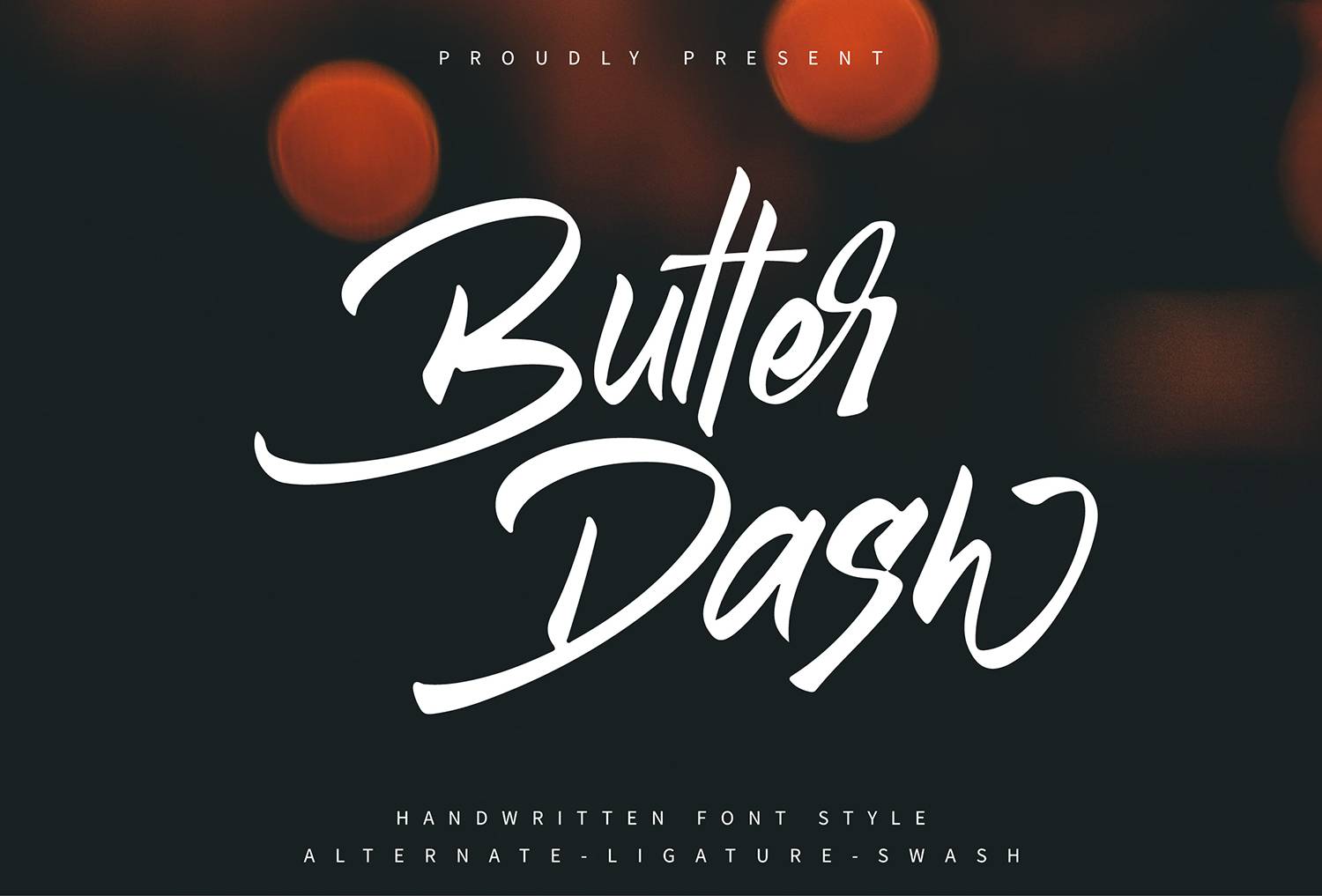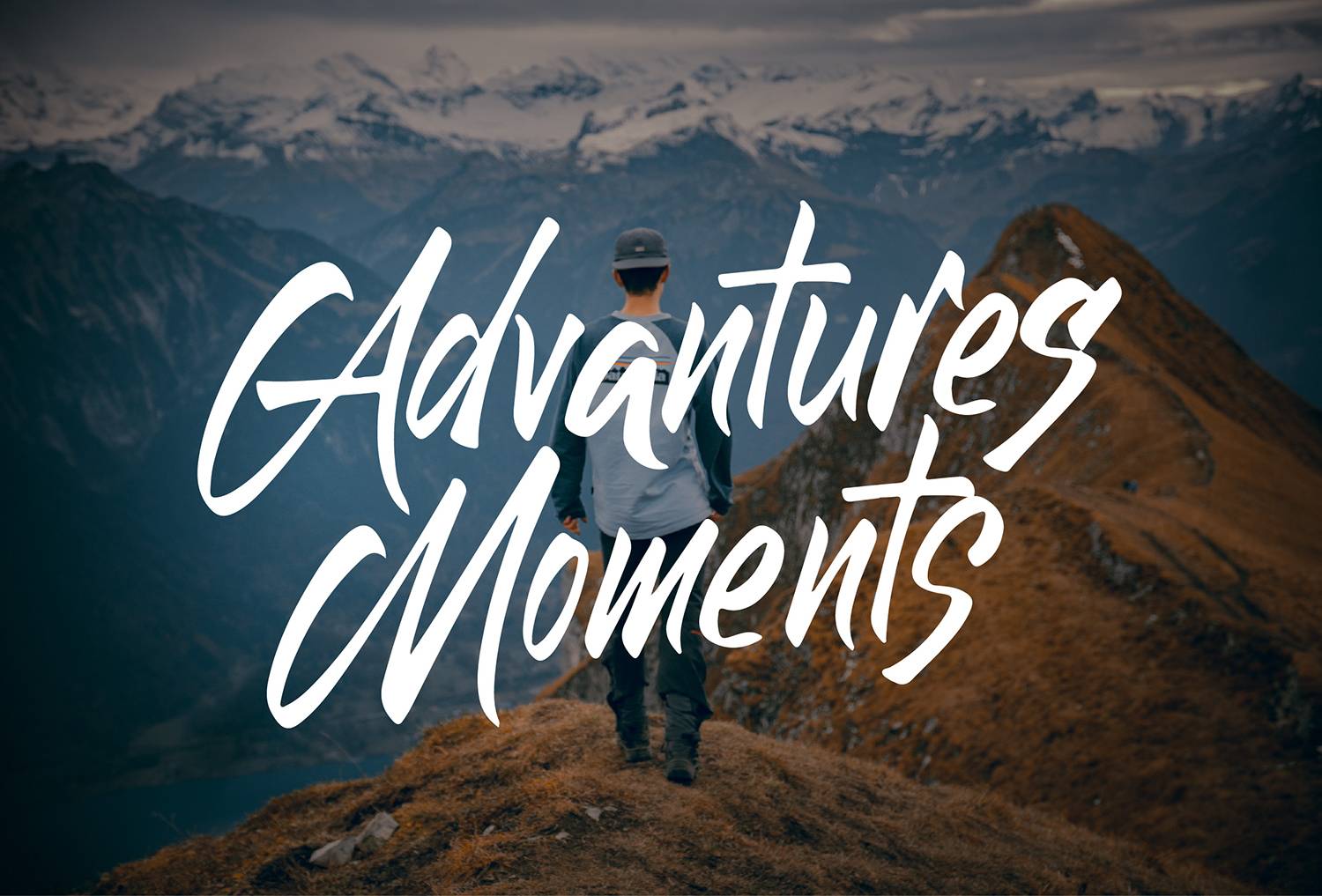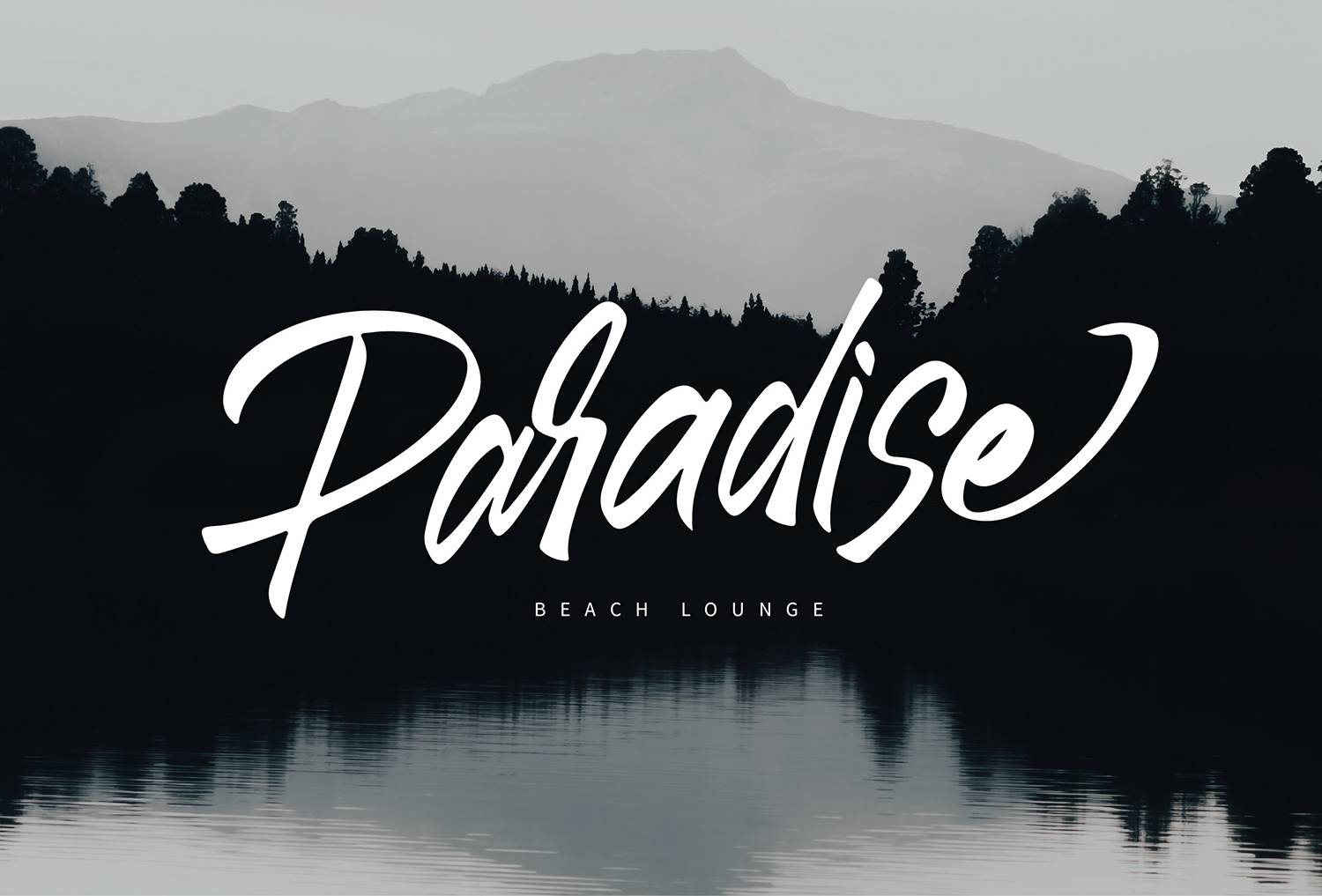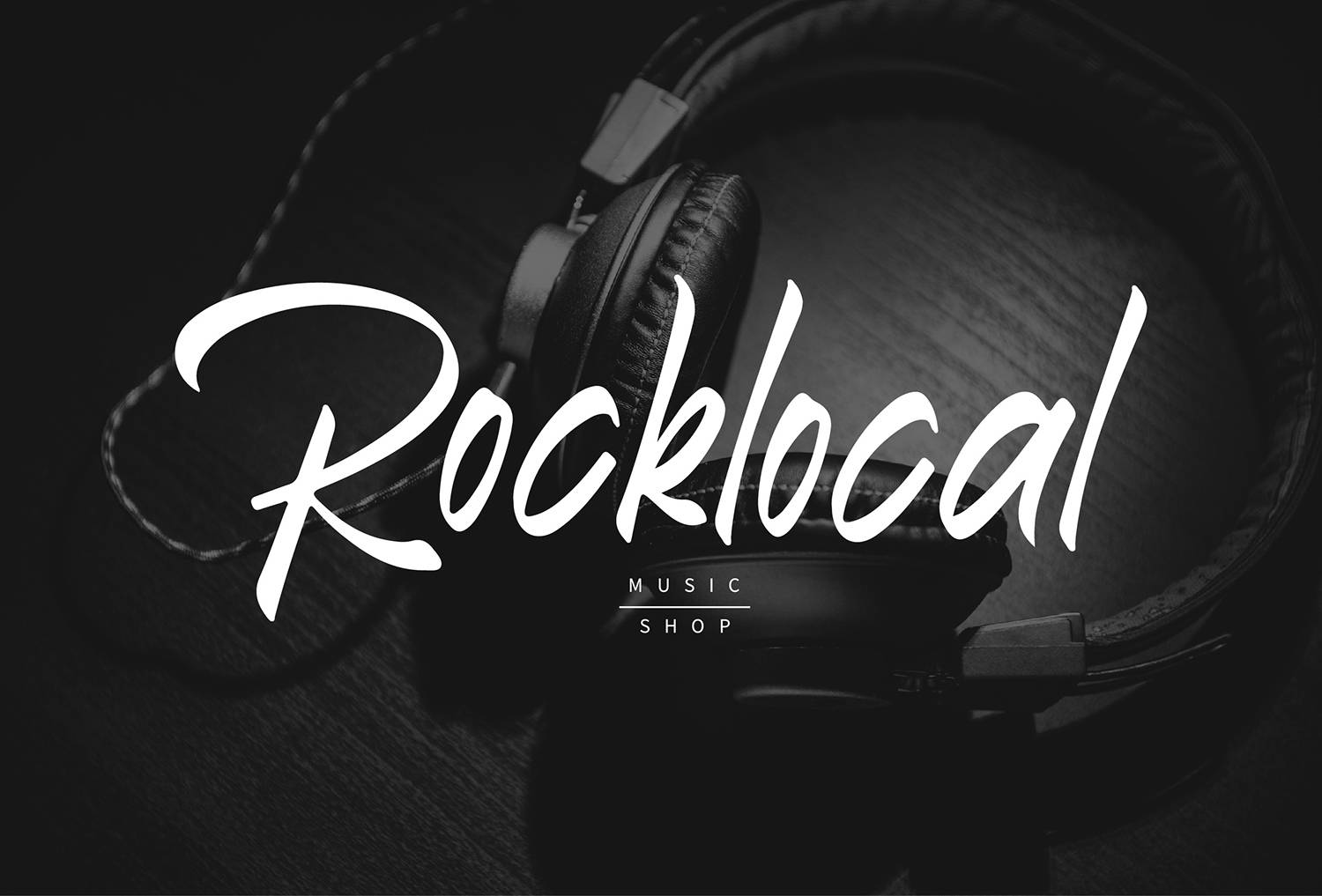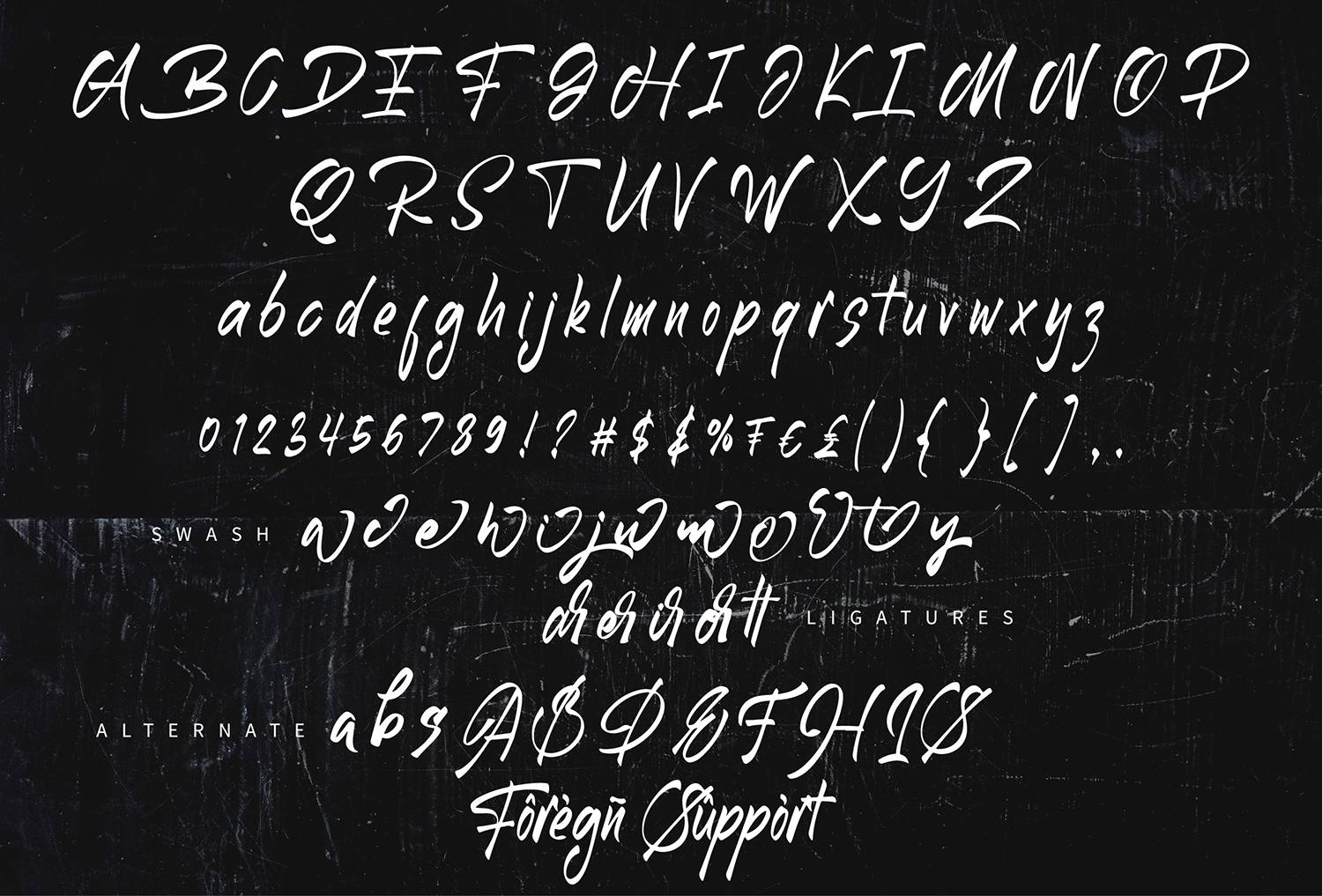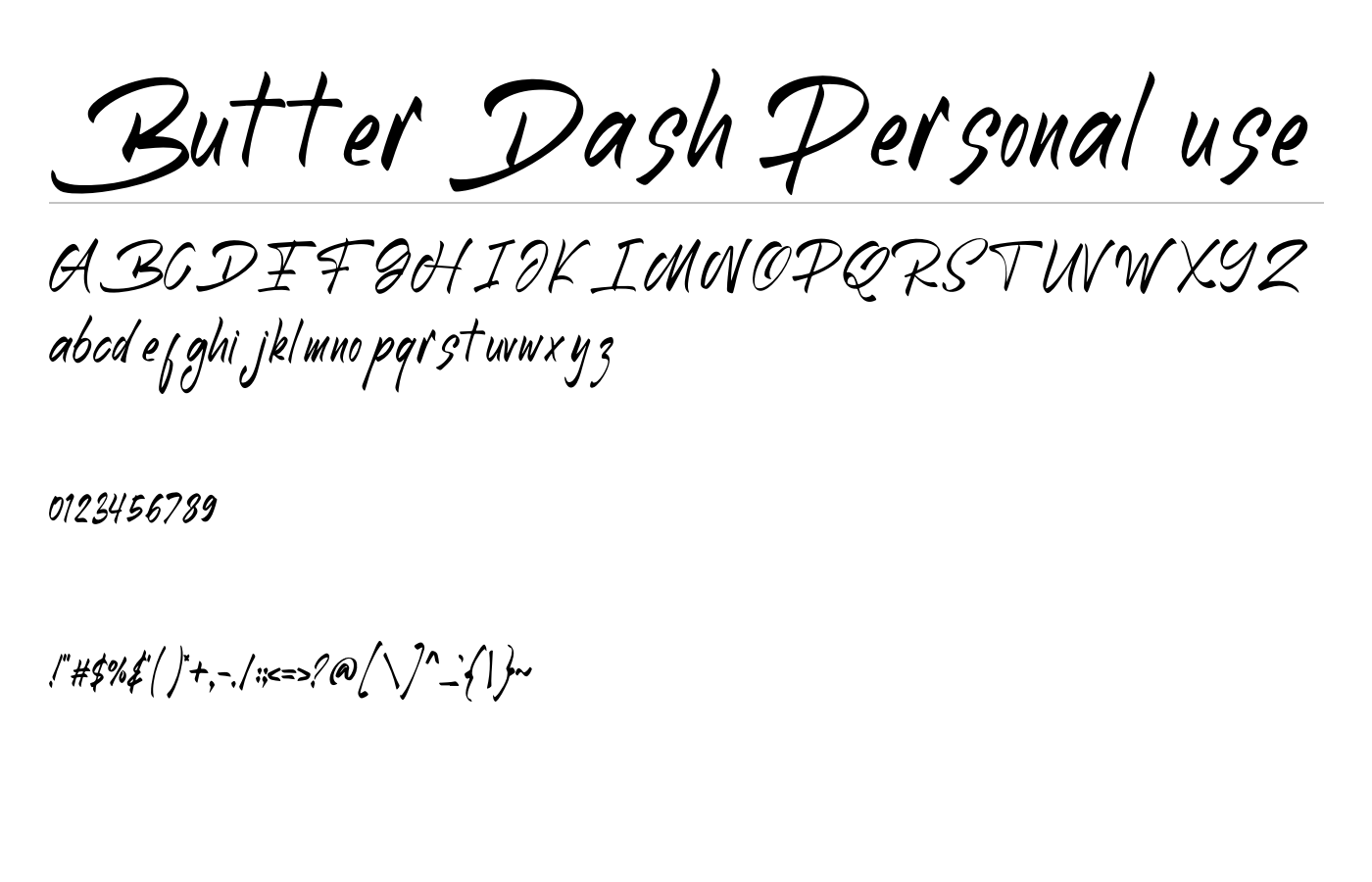
Butter Dash is an energetic and informal script font that mimics natural handwriting with its lively, slightly irregular strokes and dynamic flow. Its thin, angled lines and casual letterforms make it ideal for adding a personal, artistic touch to creative projects, invitations, branding, and social media graphics where a friendly, approachable vibe is desired. This font works best in expressive display contexts rather than body text, bringing warmth and personality to headlines and logos.
Butter Dash Font
About Butter Dash Font
| Font family | Butter Dash Font |